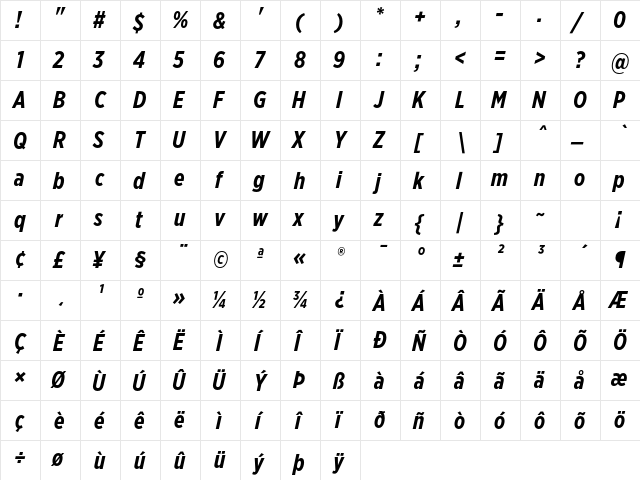
Gotham XNarrow Bold Italic Font Preview
| Foundry | Hoefler & Frere-Jones |
| Designer | Hoefler & Frere-Jones |
Design Context for Gotham XNarrow Typeface
Gotham XNarrow offers clean, dependable letterforms without strong stylistic allegiance, making it a practical choice for designers who need flexibility. The slanted form adds forward momentum and visual energy. The heavy weight commands attention and anchors typographic hierarchies. The condensed width makes it efficient for tight spaces without sacrificing legibility.
Pro Tip: Try Gotham XNarrow for annotation and caption copy alongside an upright companion — the contrast in angle creates a dynamic but ordered typographic system.